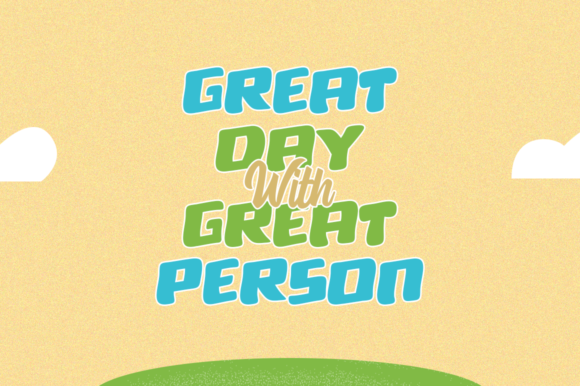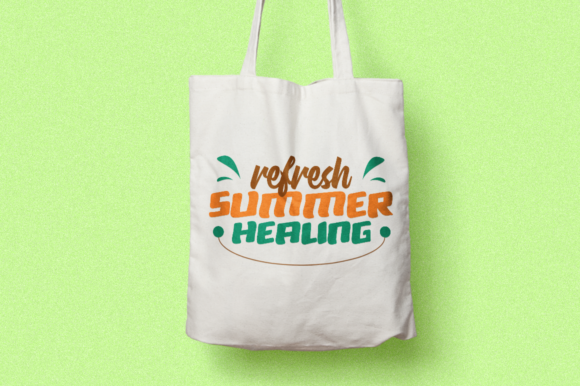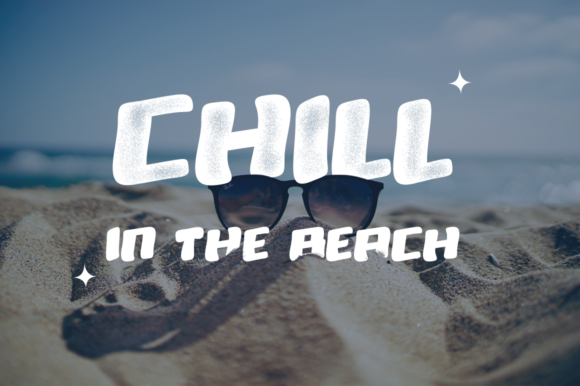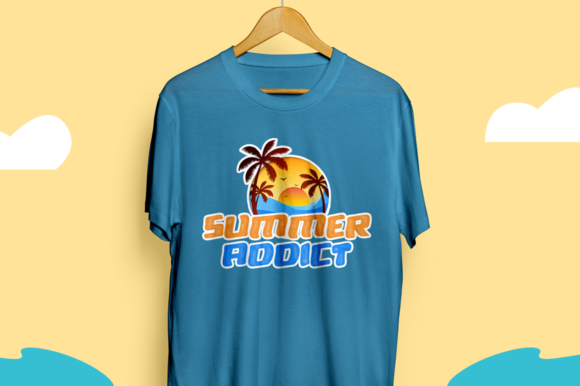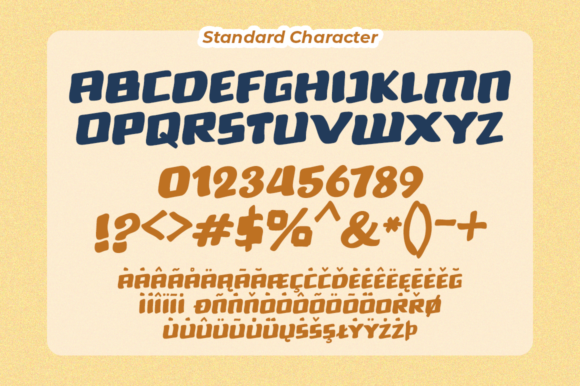
Get Ready to Sizzle with the Hello Summer Font
As the sun starts to shine brighter and the days get warmer, you know it’s time to break out the summer vibes in your designs. You’re brainstorming ideas for a new project, and suddenly, a burst of creativity hits you – a colorful, whimsical design that screams ‘summer fun.’ But, how can you capture that carefree feeling on paper?
That’s where the Hello Summer Font comes in – a delightful display font that’s guaranteed to add a dash of joy to your designs. This charming font is perfect for making a statement, and with its playful, handwritten feel, it’s sure to leave a lasting impression on your audience. Whether you’re designing for a summer-themed campaign, a kids’ product, or simply want to inject some sunshine into your brand’s aesthetic, the Hello Summer Font is an invaluable addition to your design toolkit.
Hello Summer Font Key Features
- Unique Characteristics: Hello Summer Font features a unique, hand-drawn design with subtle imperfections, giving it a warm and inviting feel.
Hello Summer Font Review
As a designer, I was excited to dive into the “Hello Summer Font” and see what it had to offer. ✨ Here are some of the things that worked well:
- Unique and playful design – The font has a fun, carefree vibe that’s perfect for summer-themed projects.
- Wide range of characters – The font includes a variety of punctuation marks, numbers, and even some decorative elements.
- Good legibility – The font is easy to read, even at smaller font sizes.
- Limited font weights – The font only comes in a few weights, which may limit its versatility.
- No italic or bold-italic styles – These are commonly used in design, and their absence may make the font less useful in certain situations.
- Not suitable for serious or formal projects – The font’s playful design makes it more suited for casual or creative projects.
Overall, I think the “Hello Summer Font” is a fun and creative addition to any designer’s toolkit. While it has some limitations, its unique design and wide range of characters make it a great choice for summer-themed projects or other casual designs.
Use the Hello Summer Font for:
Summer-themed designs, such as beach invitations or pool party flyers.
Food and drink labels, especially for ice cream or frozen yogurt shops.
Wedding invitations or decorations for a summer wedding.
For best results, use the Hello Summer Font in bold or italic styles to add emphasis and visual interest.